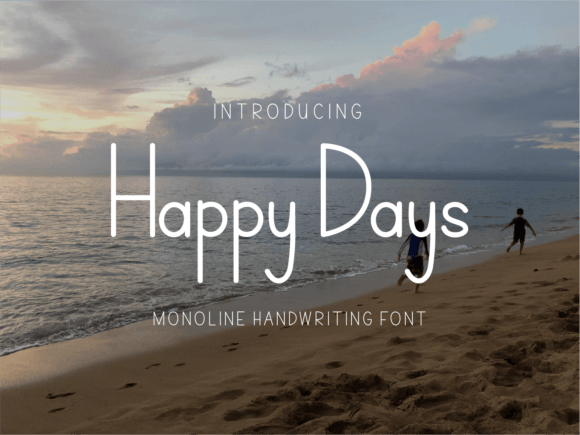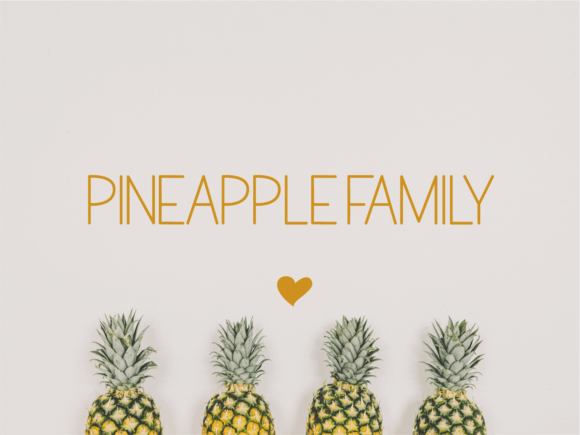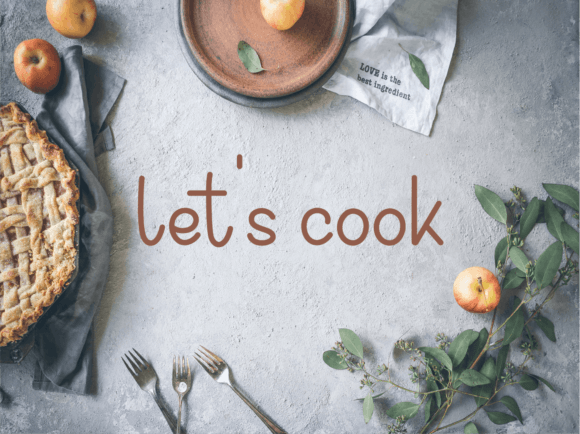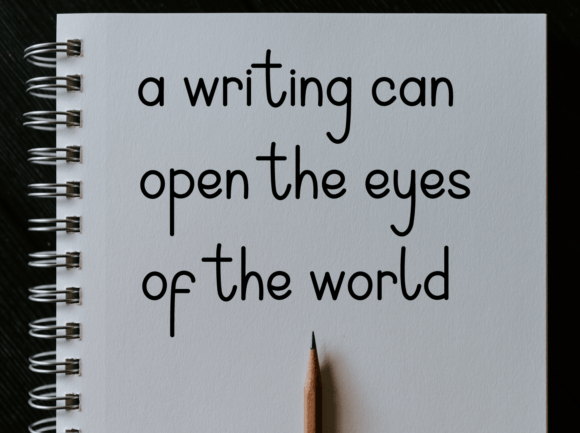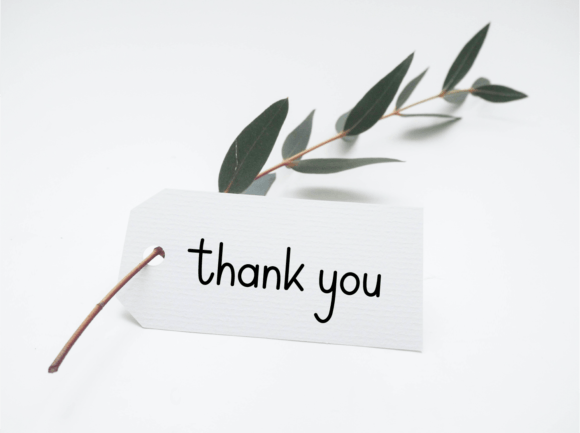
Discovering the Perfect Font for Your Next Project
Have you ever been working on a design project, and the right font just seems to elude you? You’ve got a great concept, a solid idea, but something’s missing – a key element that brings it all together. For many designers, this is a familiar feeling, one that can make the creative process feel more like a puzzle than a passion project.
That’s where the Happy Days Font comes in – a clean, modern, and friendly font that’s designed to bring a smile to your face. With its minimalist aesthetic and thin lines, it’s perfect for a wide range of projects, from branding and marketing materials to digital products and websites.
For designers, the Happy Days Font is a valuable asset, offering a versatile and reliable solution for any creative challenge. Whether you’re working on a new logo, a website redesign, or a marketing campaign, this font is sure to deliver the results you’re looking for.
Happy Days Font Key Features
- Unique Characteristics: Happy Days Font features a distinctive retro-style design with rounded edges and a vintage feel, evoking the nostalgia of the 1950s and 1960s.
- Character Set: The font includes a comprehensive character set, covering Latin, Cyrillic, and Greek alphabets, as well as a range of punctuation and symbol glyphs.
- Font Weight and Style: Happy Days Font is available in Light, Regular, and Bold weights, allowing for flexibility in design applications.
- Language Support: The font supports over 200 languages, making it a versatile choice for multilingual designs and publications.
Designer Review: Happy Days Font
Overall, I’d say the Happy Days Font is a cheerful and playful typeface that’s perfect for lighthearted projects. It’s got a lot of charm to it, and I can see why it’s been a popular choice for designers.
- Unique character set: The Happy Days Font has a wide range of characters, including alternate glyphs and swashes, which makes it perfect for creating unique and whimsical designs.
- Versatile font family: The font family includes multiple weights and styles, making it easy to find the right fit for your project.
- Fun and quirky: The font’s playful personality is infectious, and it’s perfect for adding a touch of whimsy to your designs.
- Limited language support: The font family only includes characters for English, which may be a limitation for designers working on international projects.
- Not ideal for serious or formal projects: The Happy Days Font is perfect for lighthearted projects, but it may not be the best choice for more serious or formal designs.
- May be too busy for some projects: The font’s playful personality can sometimes be overwhelming, and it may be too much for some projects.
Overall, I think the Happy Days Font is a great choice for designers who want to add a touch of whimsy to their projects. While it has some limitations, its unique character set and versatile font family make it a great addition to any designer’s toolkit.
Tips for Getting the Most Out of the Happy Days Font
For the best results, use the Happy Days Font in combination with bold or italic text to create visual interest.
Use the Happy Days Font to create a nostalgic or retro-themed design.
The Happy Days Font is ideal for:
Creating retro-themed posters or flyers.
Designing nostalgic websites or social media graphics.
Adding a vintage touch to your marketing materials or branding.